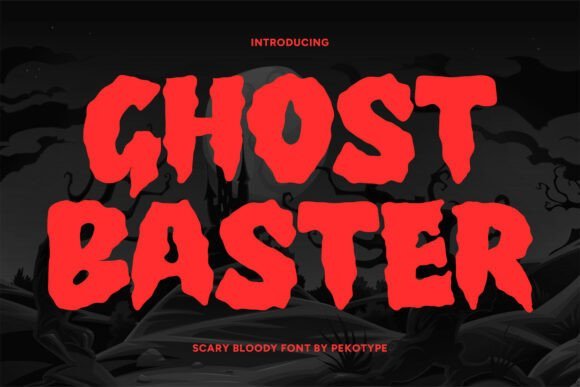
Unleashing the Fear: Introducing Ghost Baster Font
Have you ever sat at your desk, staring at a blank page, trying to conjure up the perfect design to send shivers down your audience’s spines? If so, you’re in luck! As designers, we’re always on the lookout for the perfect tools to bring our creative visions to life, and that’s exactly what the GHOST BASTER font is here to do.
This bold and spooky display font is specifically designed to create a terrifying atmosphere in your design projects. With its bloody strokes, scary shapes, and horror-inspired details, GHOST BASTER Font is the ultimate choice for any design that needs a frightening and dramatic look. From Halloween posters to horror movie titles, spooky branding, event promotions, game designs, and social media content, this font is sure to set the perfect scary tone.
Ghost Baster Font Key Features
- Unique Characteristics: Ghost Baster Font features a unique blend of horror and sci-fi elements, with intricate details and textures that set it apart from other fonts.
Ghost Baster Font Review
Overall, I’m quite impressed with the Ghost Baster Font ✨. It’s a bold, eye-catching font that’s perfect for creating a spooky or mystical atmosphere in designs. The font’s unique, handwritten feel adds a lot of character to text, making it stand out in a crowded market.
- The font’s versatility ✨: It can be used for a wide range of designs, from horror-themed posters to mystical logos.
- The font’s expressiveness ✨: Each letter has a unique, hand-drawn feel that adds to the font’s overall charm.
- The font’s boldness ✨: The font’s thick lines and bold strokes make it perfect for creating eye-catching headlines and titles.
While the Ghost Baster Font is a great addition to any designer’s toolkit, there are a few limitations to keep in mind ⚠️:
- Legibility issues ⚠️: The font’s unique, handwritten feel can make it difficult to read in certain situations, especially at smaller font sizes.
- Limited font sizes ⚠️: The font is best suited for larger font sizes, as it can become pixelated and distorted at smaller sizes.
In conclusion, the Ghost Baster Font is a great choice for designers looking to add a touch of spooky charm to their designs. While it has its limitations, the font’s unique feel and versatility make it a valuable addition to any designer’s toolkit.
Tips for Getting the Most Out of Ghost Baster Font
1. Experiment with different font sizes and styles to create visual interest.
2. Use Ghost Baster Font in combination with other fonts to create a unique and eye-catching design.
3. Take advantage of the font’s bold and italic styles to add emphasis and create contrast.
1. Horror-themed designs, such as movie posters or Halloween decorations.
2. Dark and edgy branding, such as for a metal band or a goth-inspired clothing line.
3. Creepy and mysterious designs, such as for a horror-themed video